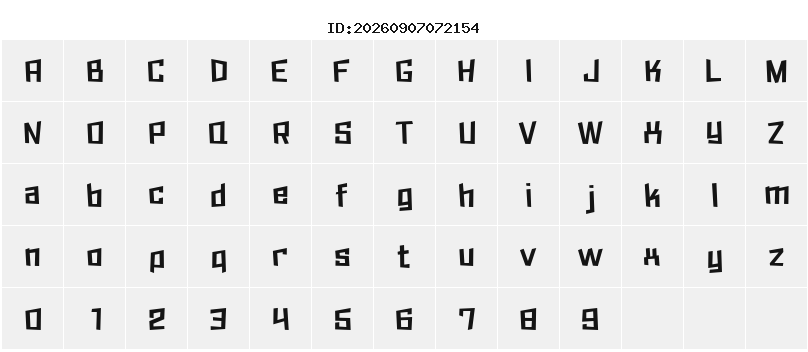
Updike Preview
• Font Name: Updike
• Font ID: TMF Updike
• Full Font Name: Updike
• Version: In honor of Jami and TTR
• PostScript Name: Updike
• Character Count: 224
About Updike.ttf
Updike.ttf is a modern, elegant sans-serif font designed for ultimate readability and visual harmony. Perfect for branding, headlines, web design, and print materials.